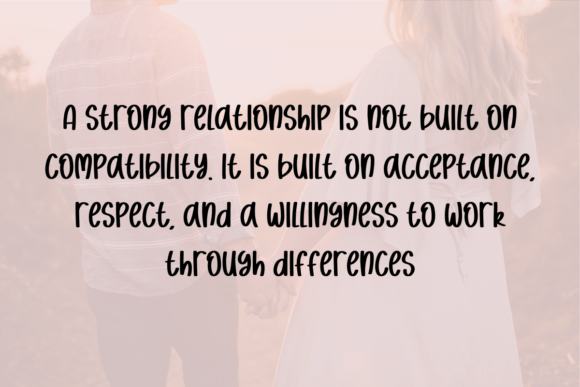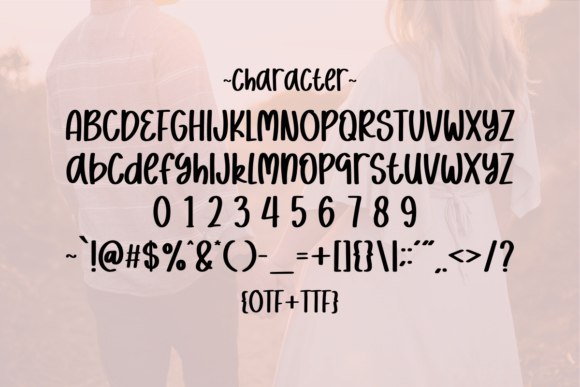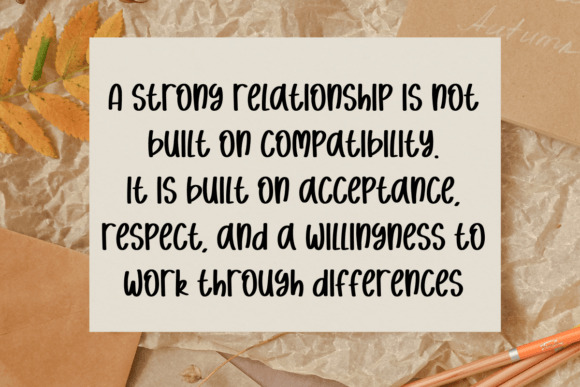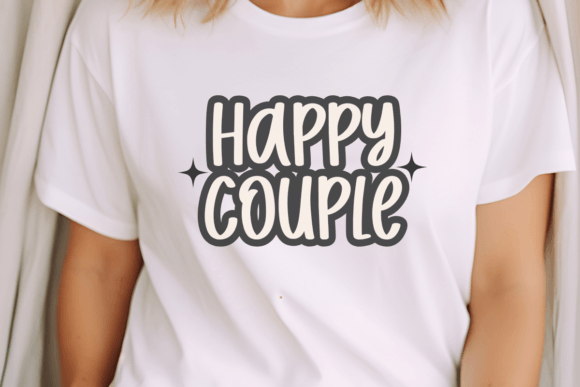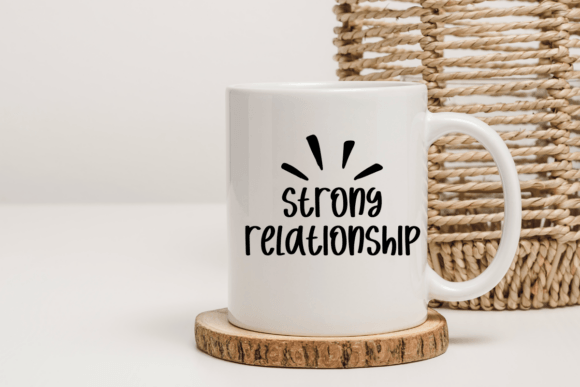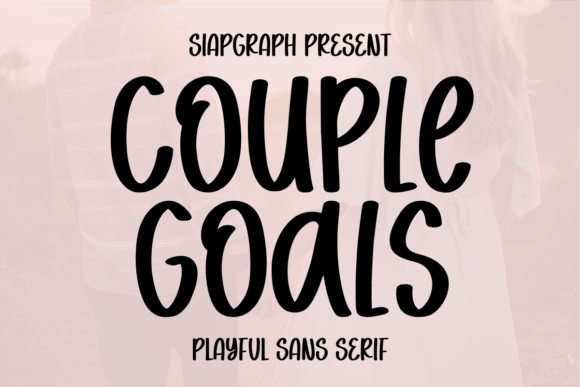
Couple Goals Font: The Perfect Addition to Your Design Library
Are you a designer or crafter looking for a font that can add a touch of playfulness and charm to your creative projects? Look no further than the Couple Goals font! This fun and playful sans-serif font is perfect for a wide range of applications, from journals and KDP projects to Cricut designs and sublimation.
What Makes Couple Goals Font So Special?
The Couple Goals font stands out from the crowd with its natural strokes and touches that give it a lively and whimsical feel. Its cute and charming style makes it perfect for projects that require a personal touch. Whether you’re creating a journal, planner, or teaching material, this font is sure to add a touch of personality to your design.
Uses for Couple Goals Font
The versatility of the Couple Goals font is one of its best features. Here are just a few examples of the many creative projects you can use it for:
• Journals and Notebooks: Add a personal touch to your journal or notebook with the Couple Goals font. Its playful style makes it perfect for bullet journaling, scrapbooking, and other paper crafting projects.
• KDP Projects: If you’re a self-publisher or author, you’ll love the Couple Goals font. Its clear and readable style makes it perfect for eBooks, print books, and other KDP projects.
• Teaching Materials: The Couple Goals font is also great for teaching materials, such as worksheets, activity sheets, and educational posters. Its fun and engaging style will help capture your students’ attention and make learning more enjoyable.
• Cricut Designs: If you own a Cricut machine, you’ll love the Couple Goals font. Its compatibility with Cricut makes it perfect for cutting vinyl, iron-on designs, and other materials.
• Silhouettes and Sublimation: The Couple Goals font is also great for silhouettes and sublimation projects. Its smooth and clean lines make it perfect for creating custom designs for clothing, accessories, and other products.
• Women’s Clothing and Accessories: Add a touch of personality to your women’s clothing and accessories with the Couple Goals font. Its playful style makes it perfect for designing custom t-shirts, tote bags, and other fashion items.
Why You Need Couple Goals Font in Your Design Library
The Couple Goals font is a valuable addition to any design library. Its versatility, playfulness, and charm make it perfect for a wide range of creative projects. Here are just a few reasons why you need this font in your collection:
• Unique Style: The Couple Goals font has a unique and distinctive style that will set your designs apart from the crowd.
• Ease of Use: This font is easy to read and use, making it perfect for a wide range of applications.
• High-Quality Design: The Couple Goals font is designed with high-quality and precision, ensuring that it looks great in any project.
Tips for Using Couple Goals Font
Here are a few tips for getting the most out of the Couple Goals font:
• Experiment with Different Sizes: The Couple Goals font looks great in a variety of sizes, from small and delicate to large and bold.
• Pair with Other Fonts: Try pairing the Couple Goals font with other fonts to create a unique and interesting design.
• Use for Headings and Titles: The Couple Goals font is perfect for headings and titles, adding a touch of personality and whimsy to your design.
In conclusion, the Couple Goals font is a fun and playful sans-serif font that is perfect for a wide range of creative projects. Its natural strokes and touches give it a lively and whimsical feel, making it a valuable addition to any design library. Whether you’re a designer, crafter, or DIY enthusiast, this font is sure to enhance any creation and add a touch of personality to your designs.